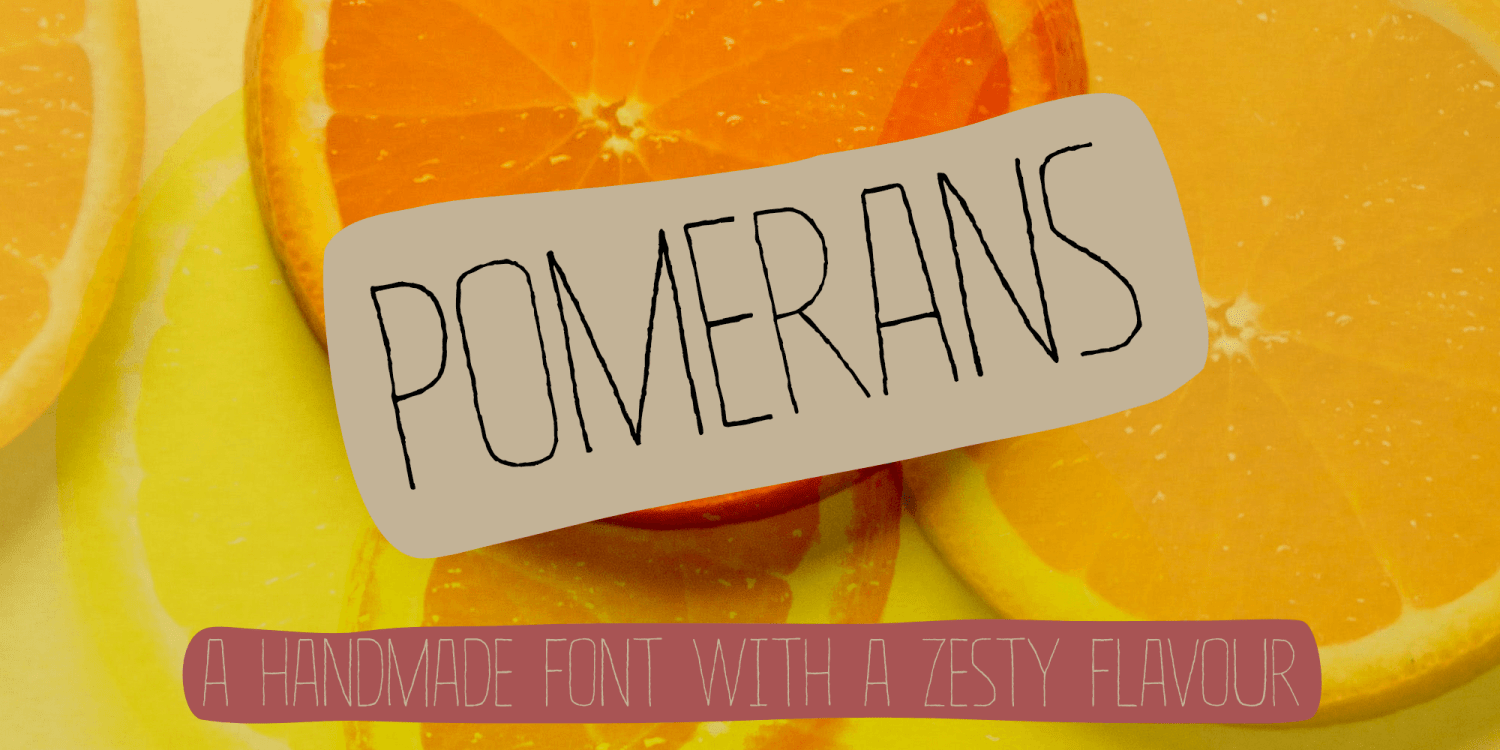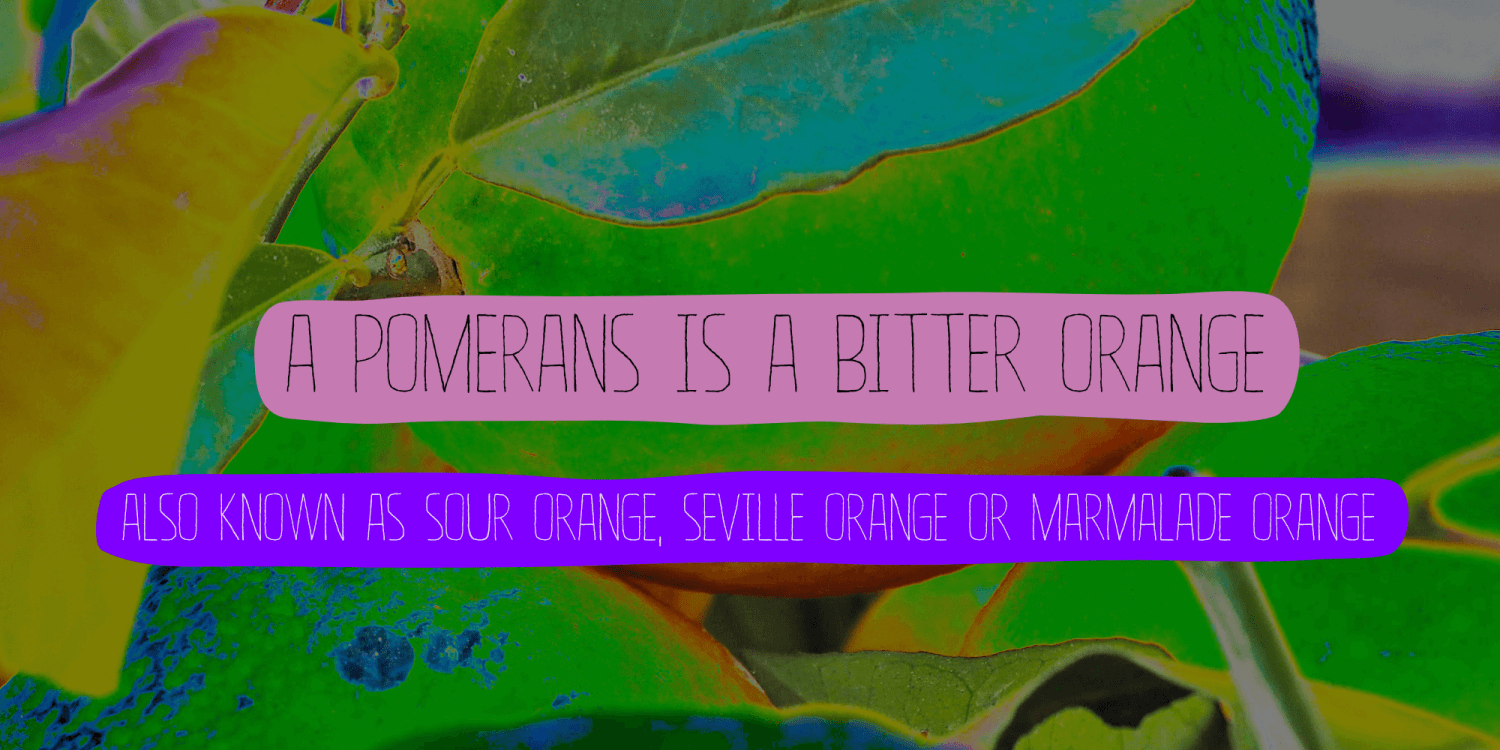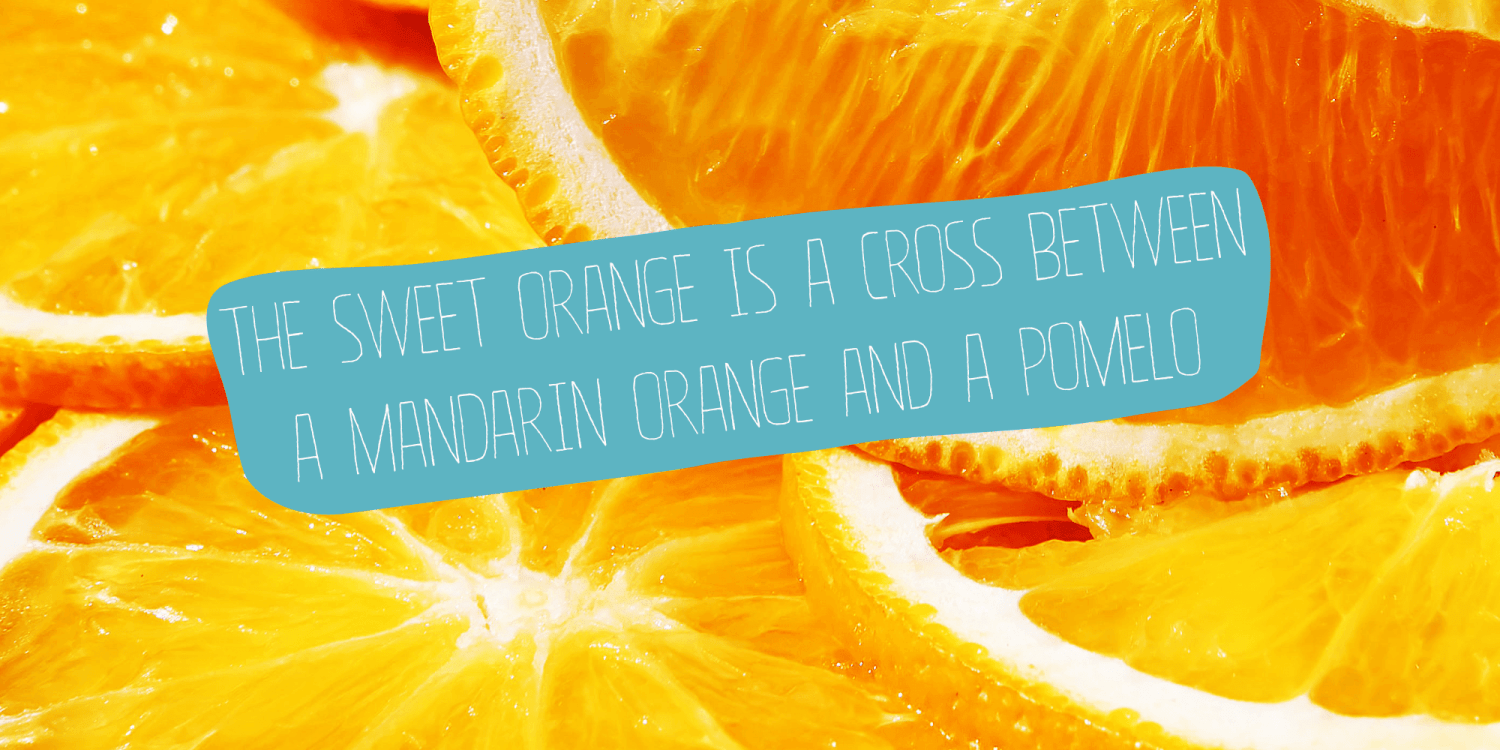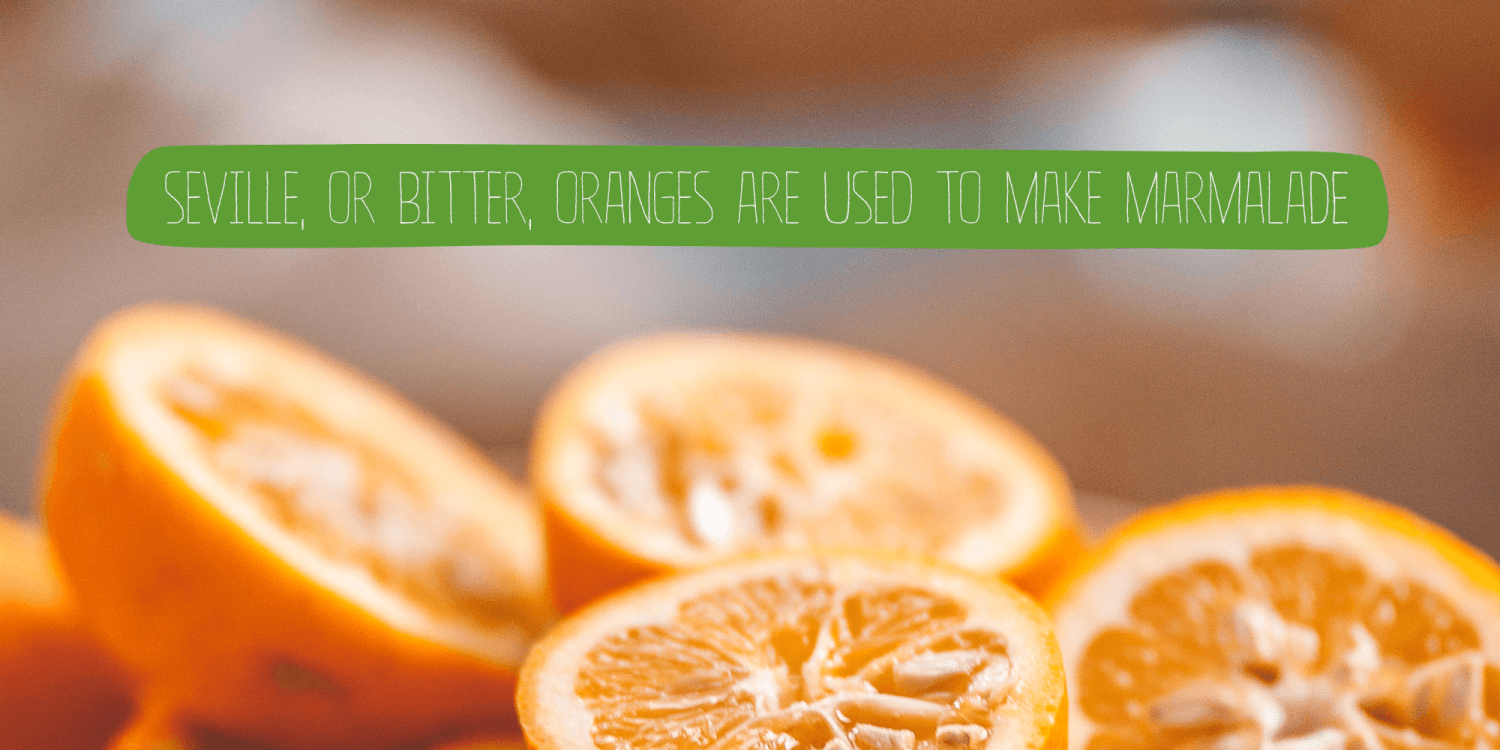
Pomerans
Pomerans is a redo of an old font of mine called Suco De Laranja. Since the original font had a citrusy name, I decided to name this reincarnation Pomerans, which means ‘Seville Orange’ in Dutch. I doubt that there are many Dutch people who actually know what a pomerans is!
Pomerans is a handmade, all caps font. I kept the look and feel of the original font, but I cleaned up the glyphs, added new glyphs and added additional language support (including Vietnamese and Sami).